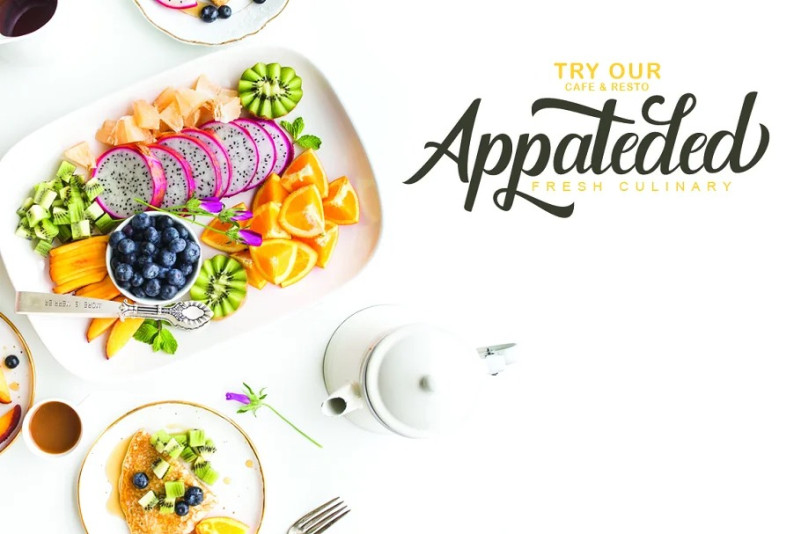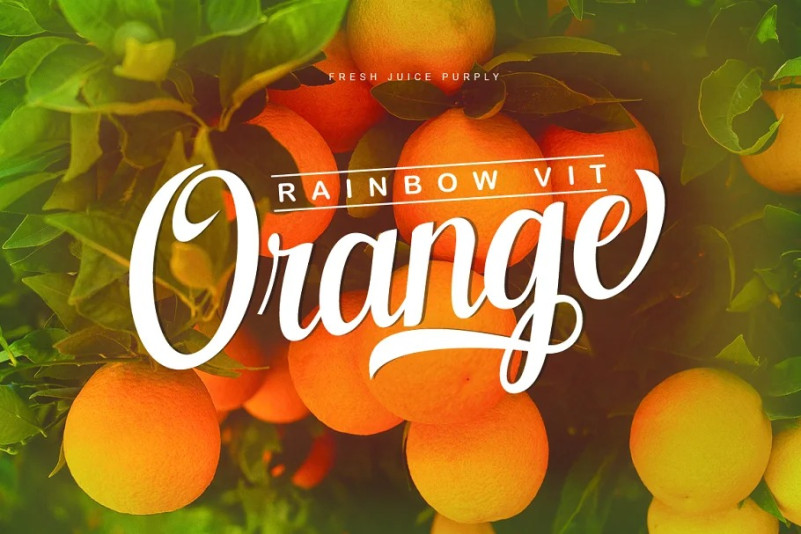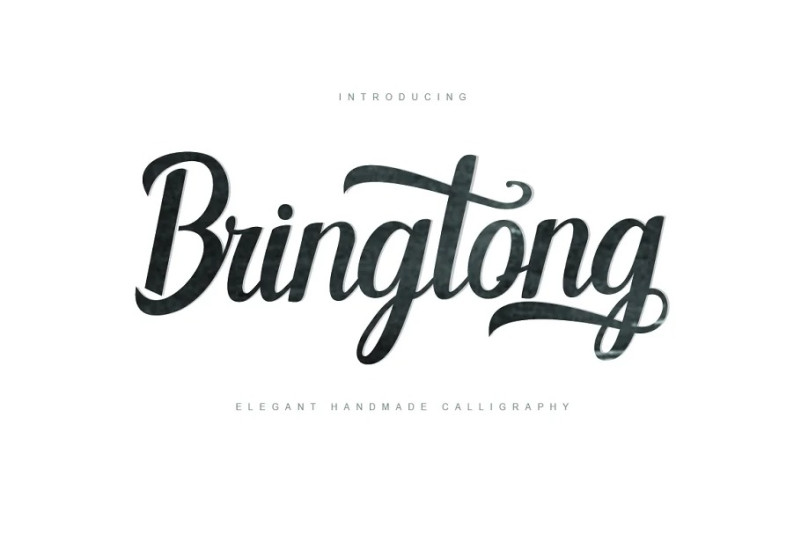
Bringtong Font
Bringtong Script Font is a brush script inspired by Hot Rod lettering and sign painting. Bringtong is a very versatile script: It includes of end swashes, swash caps, small , lots of alternate characters and underline option. All in all it has over 362 glyphs.
Bringtong is bouncy and smooth and has a very organic feel. You have a lot of options to customize it and that makes it perfect for logos, packages and titles.